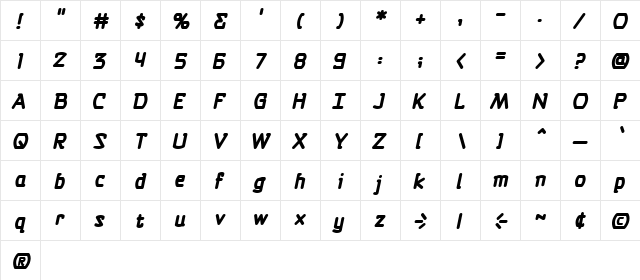
Self Destruct Button BB Bold
Design Context for Self Destruct Button BB Typeface
Self Destruct Button BB takes a measured approach to typography — its balanced proportions and neutral character make it a reliable workhorse for both digital and print work. The heavy weight commands attention and anchors typographic hierarchies.